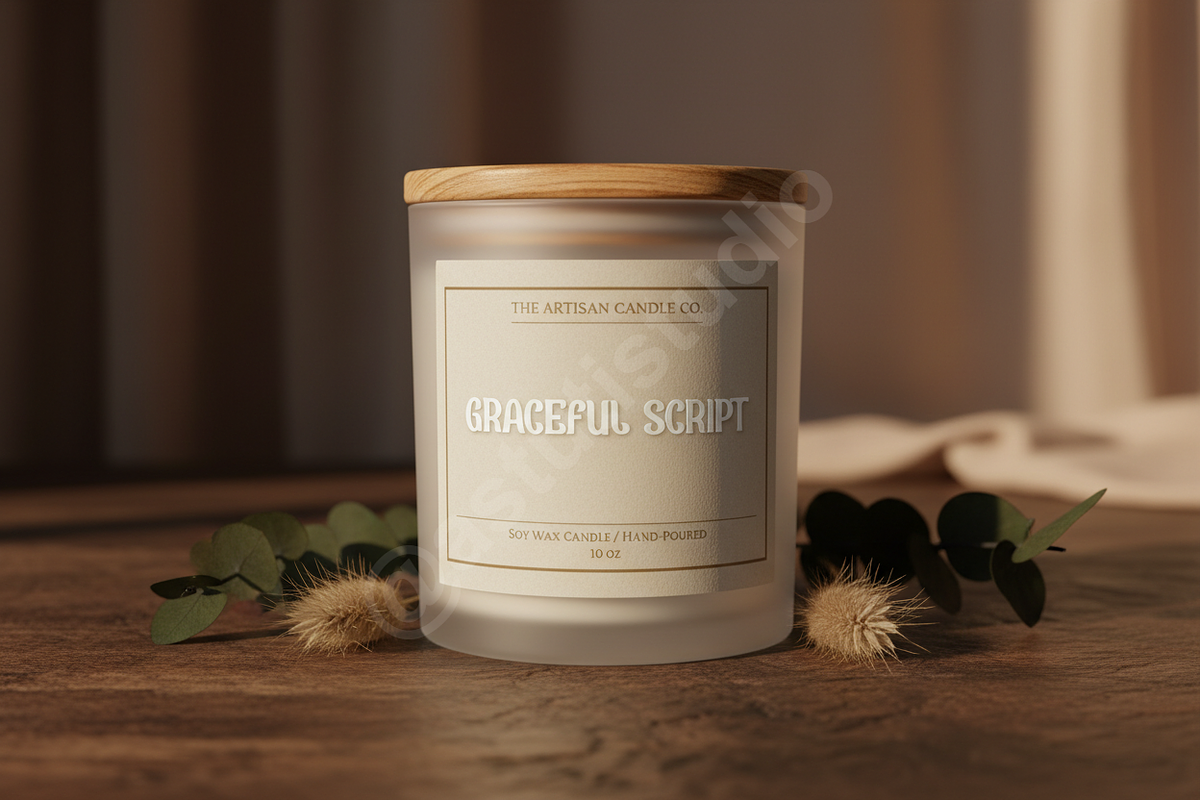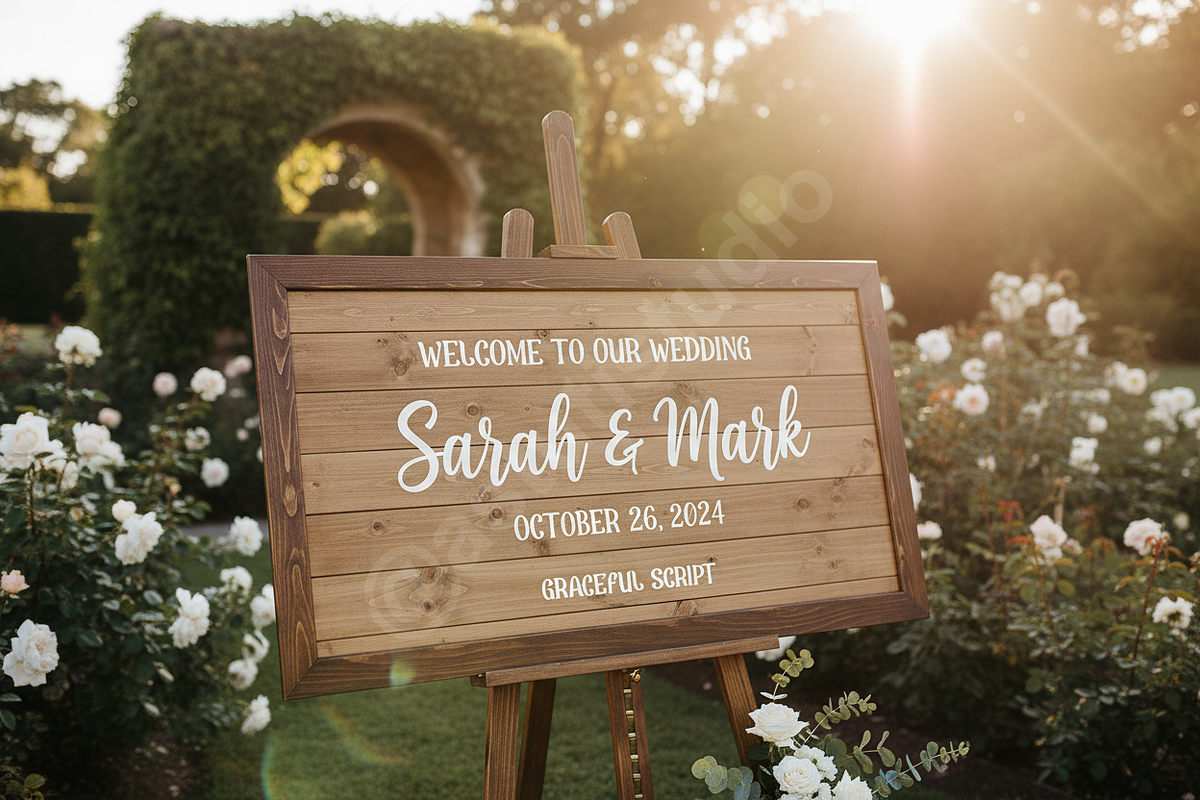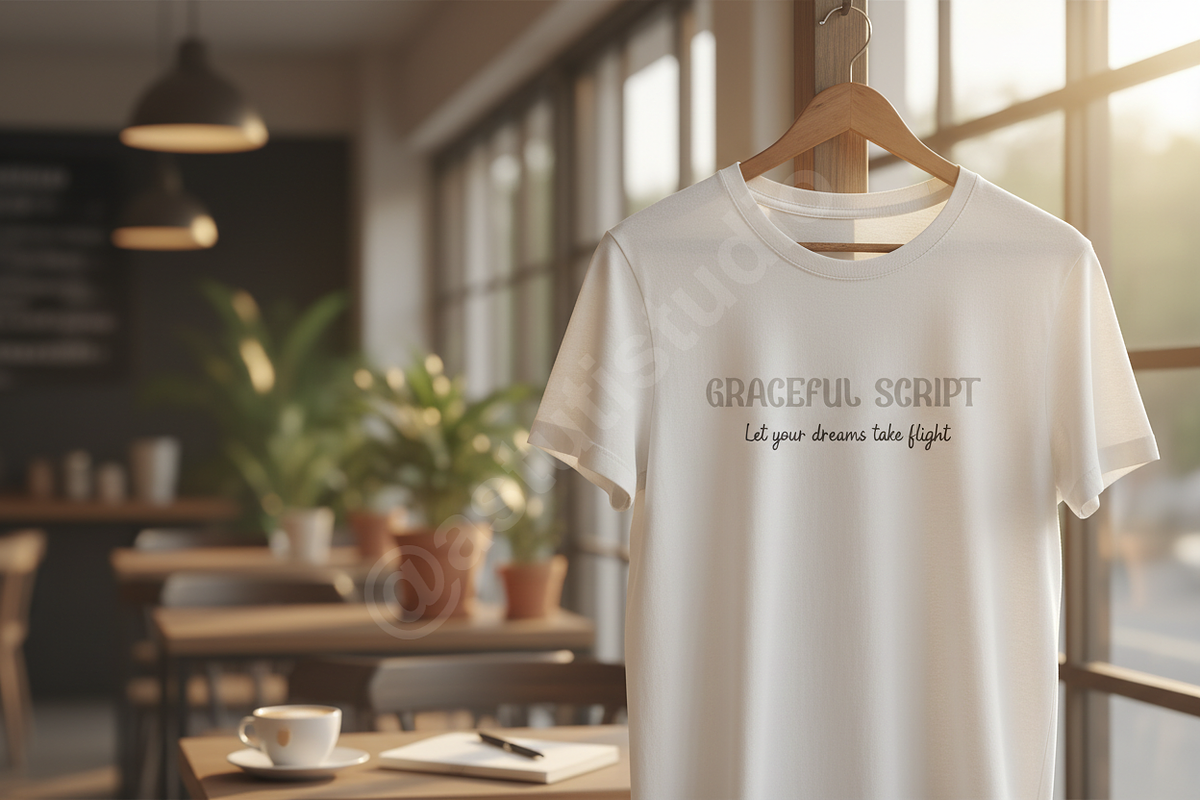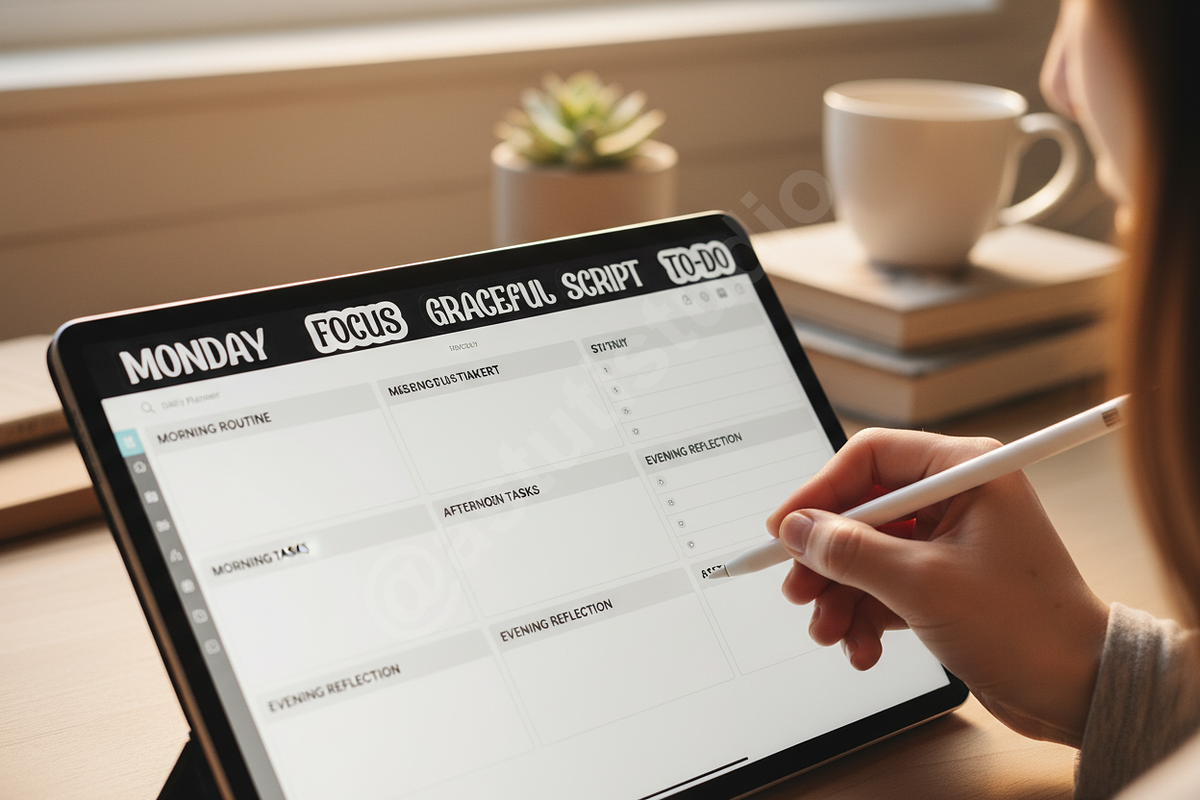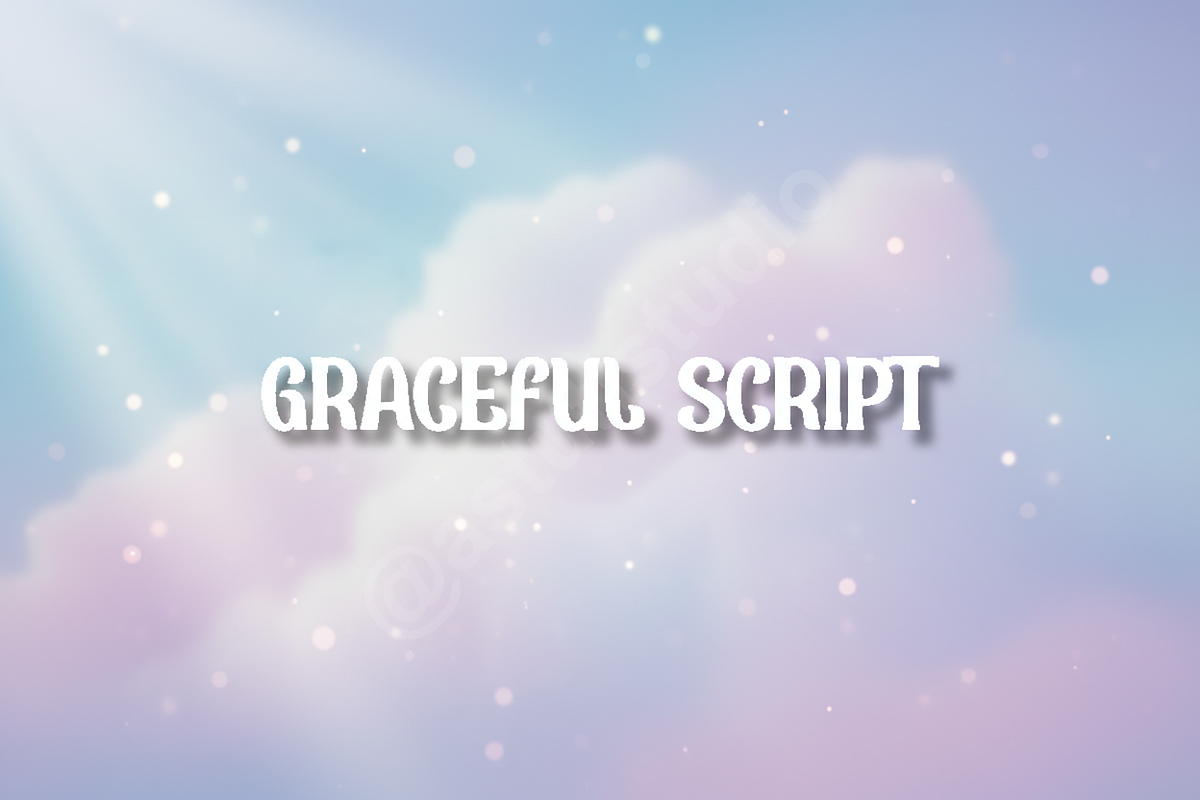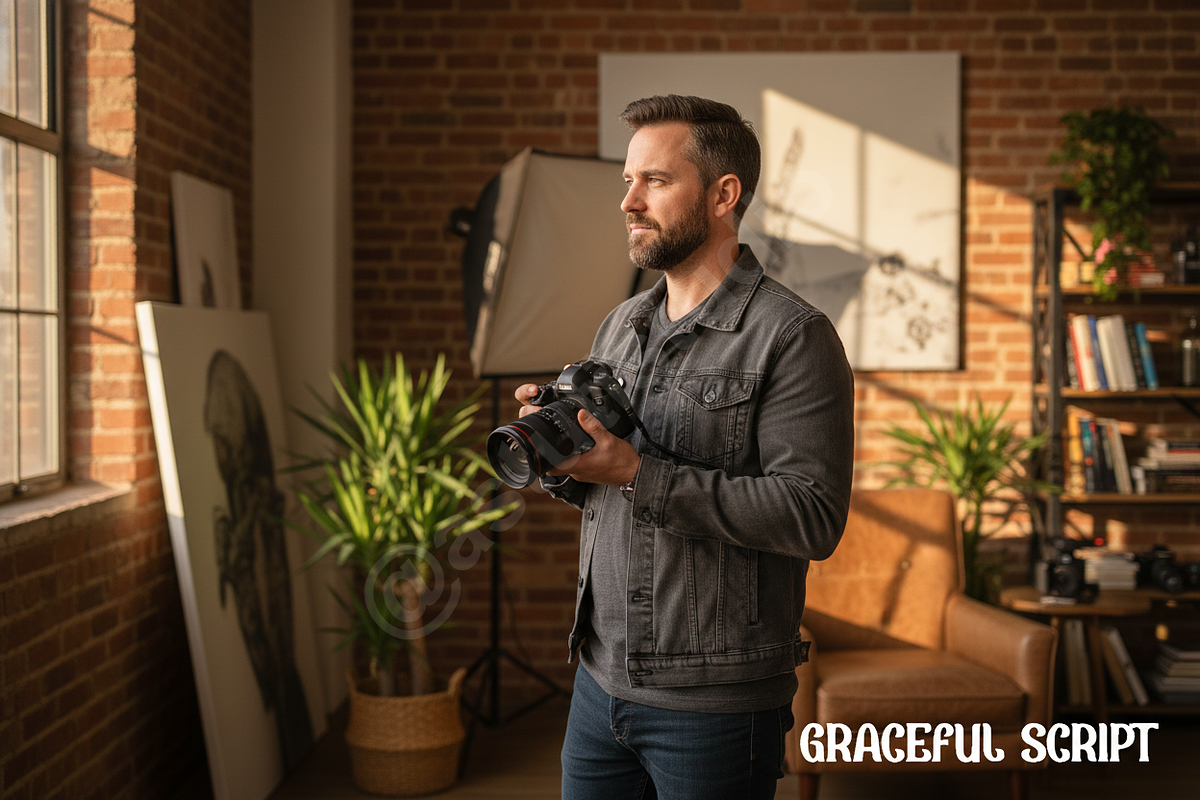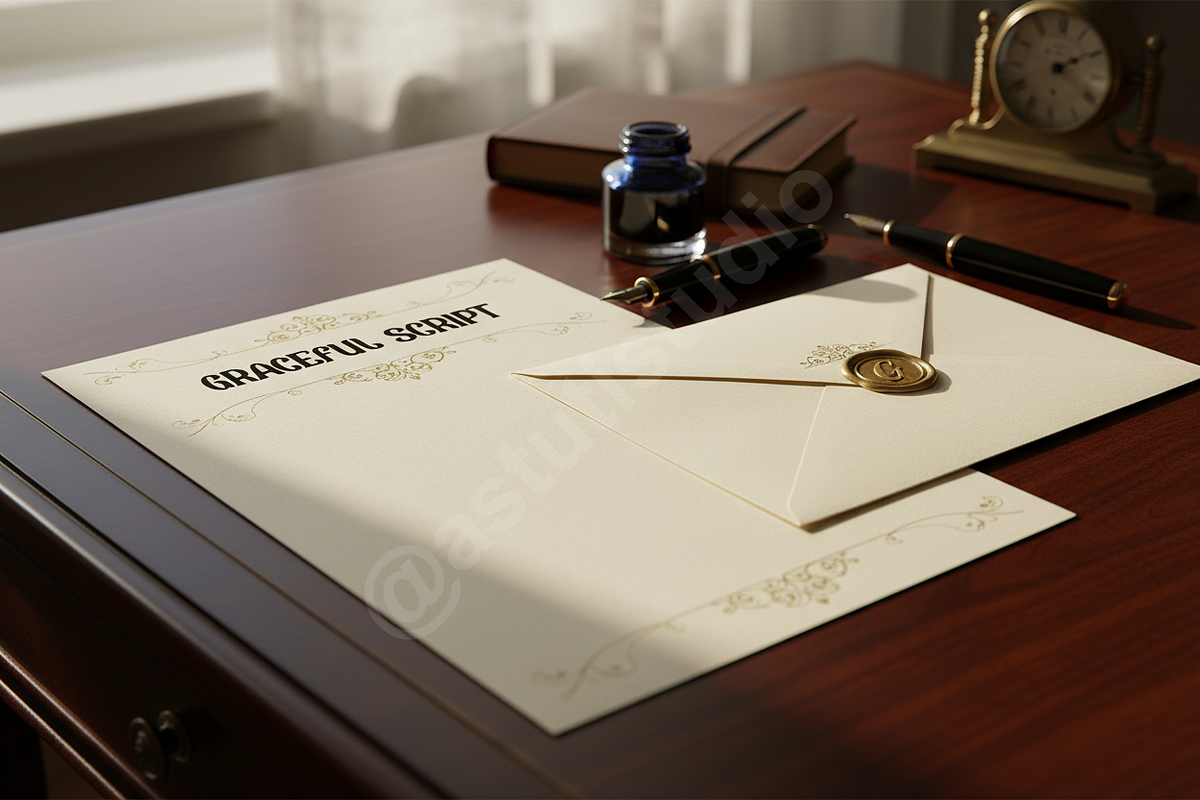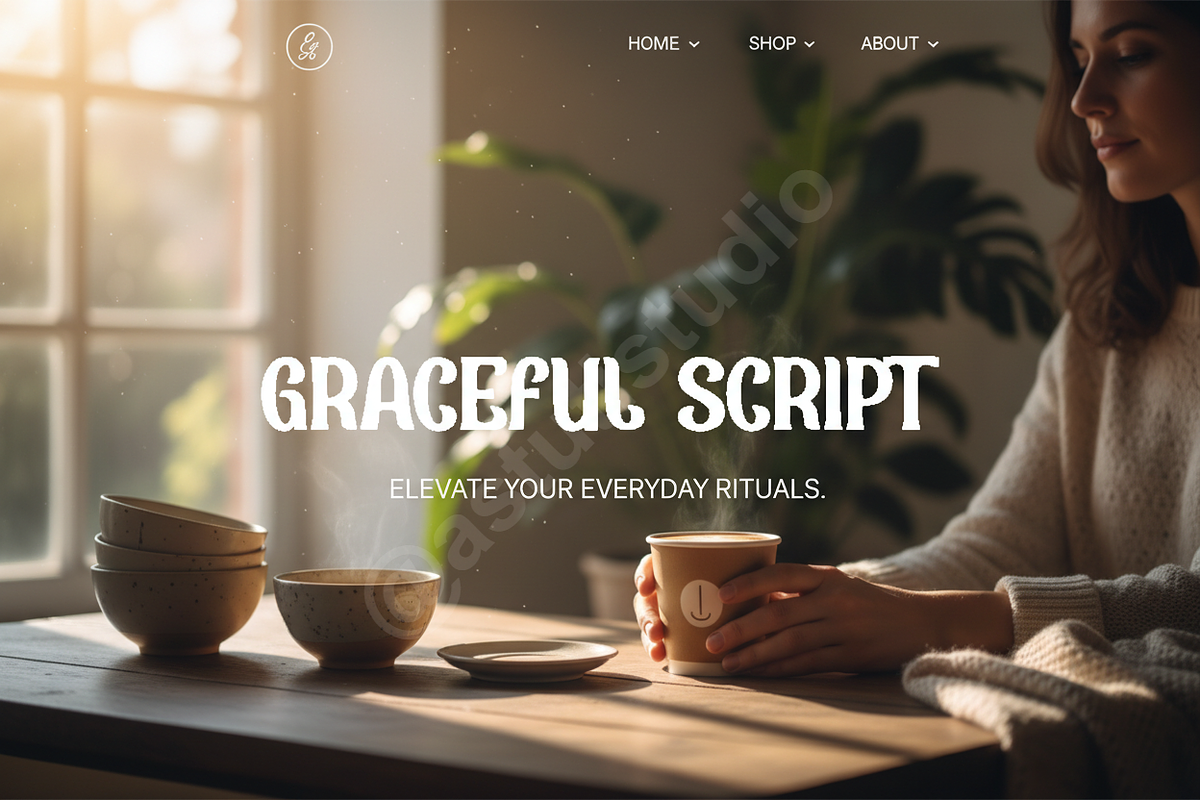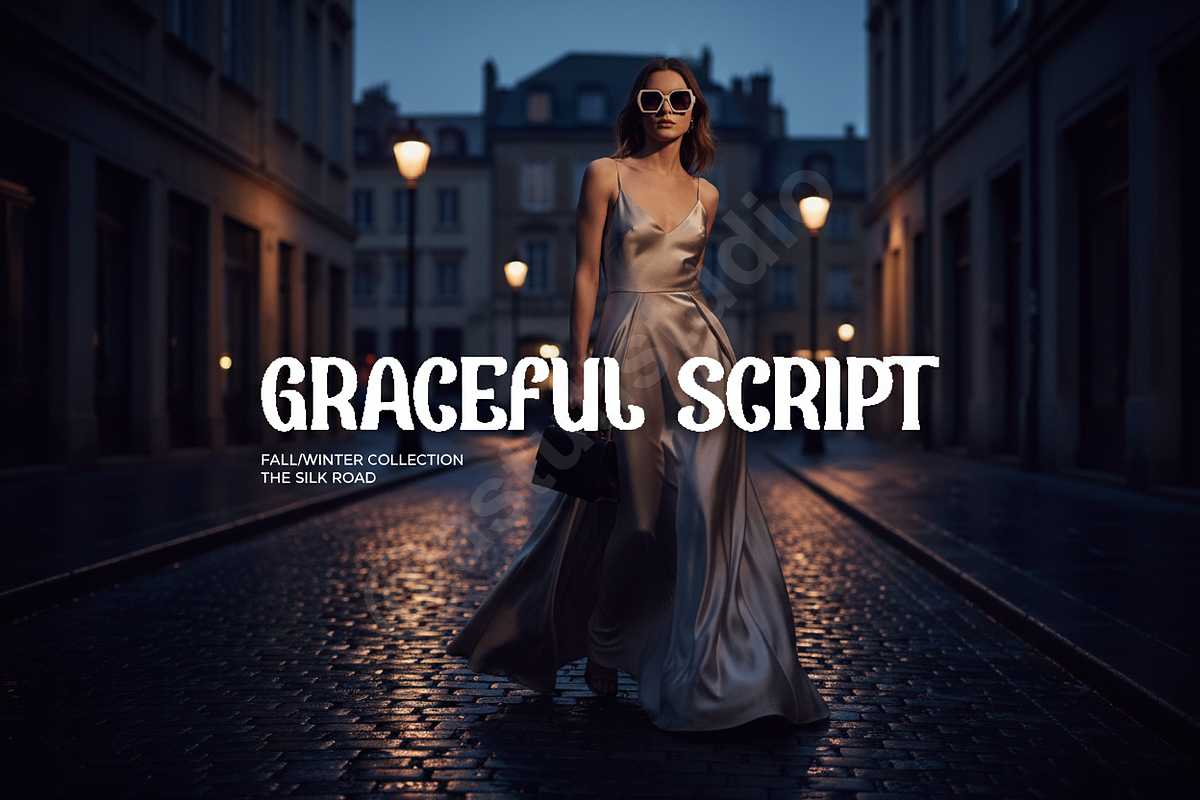
Fexi - Elegant Luxury Display Font
INTRODUCTION Fexi is an exquisite typeface designed for the discerning creative who seeks unparalleled elegance and sophisticated versatility. Crafted with meticulous attention to detail, Fexi embodies a premium studio aesthetic, making it the perfect choice for luxury branding, high-end editorial layouts, and impactful social media campaigns. Elevate your designs with a font that speaks volumes of refinement and modern allure.
- Elegant and refined letterforms ensuring a sophisticated and memorable presence.
- Optimized for both print and digital applications, guaranteeing crisp readability and stunning visual impact across all mediums.
- Versatile design suitable for powerful headlines, engaging body text, distinctive logotypes, and striking social graphics.
- Imparts a sense of timeless luxury and contemporary appeal, perfect for premium products and services.
- Designed for seamless integration into a wide array of creative projects.